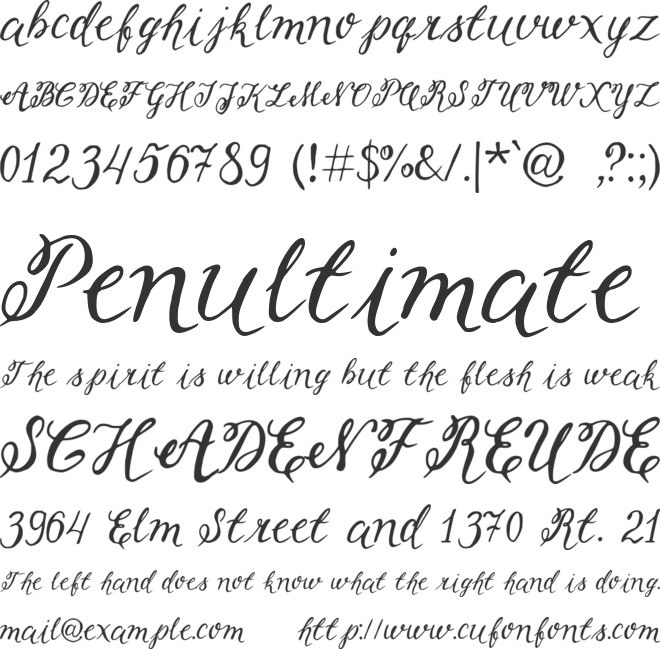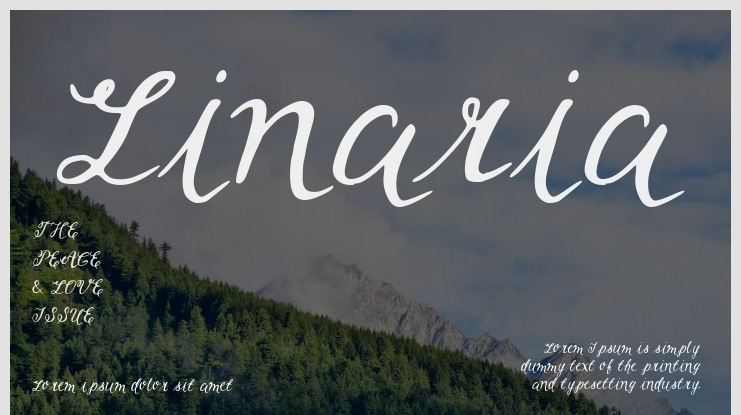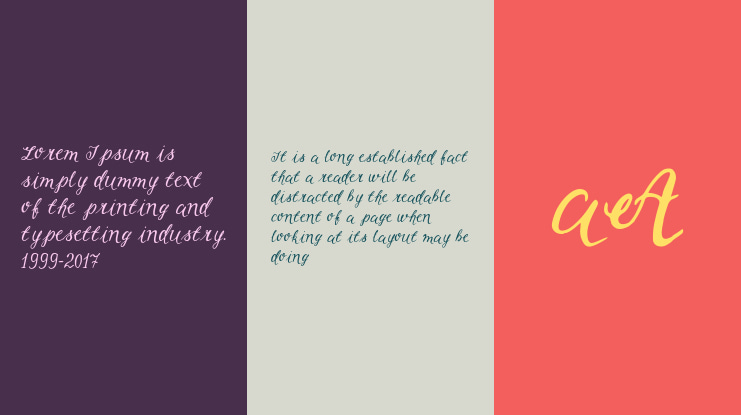
Linaria Font
This is a wonderful font featuring a unique, detailed, and handcrafted look.
The fonts look especially striking in all caps with wide-set spacing for a classy appearance. They also hold their own beautifully in both uppercase and lowercase, adding a timeless touch.
Perfect for creating stunning logos, displays, headers, invitations, save-the-dates, wedding materials, titles, web layouts, branding, and more.